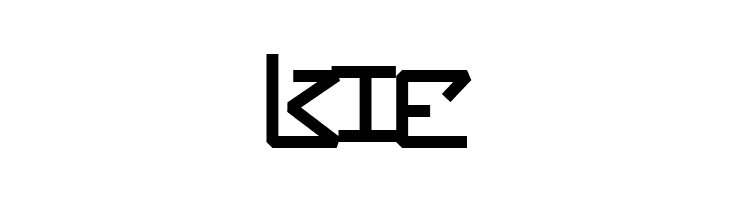
HobbyHorse Font
Font by Nick Curtis - www.nicksfonts.com
A playful, bold serif font with rounded features and a whimsical style.
Lara Prints Font
A playful, casual handwritten font with irregular, organic letterforms.
CameoAppearance Font
Font by Nick Curtis - www.nicksfonts.com
A bold, decorative font with geometric shapes and ornate frames.
changes... Font
A playful, bold handwritten font with whimsical elements.
Ganymedian Regular Font
A bold, geometric font with tall, narrow characters and a modern aesthetic.
philosophy Font
A bold, geometric font with a strong, industrial feel.
KG Set Fire to the Rain Font
Font by www.kimberlygeswein.com - Kimberly Geswein
A playful, handwritten font with rounded edges and a casual style.
K22 Spotty Face Font
Font by Toto
A playful, dotted font perfect for creative and modern designs.
Majoram Sans Bold Font
A modern, geometric sans-serif font with a sleek and minimalist design.
Andada Font
A modern serif font with elegant curves and balanced stroke contrast.
Duralith Font
Font by Apostrophic Lab
A modern, geometric font with rounded edges and a playful style.
SF Chromium 24 Font
Font by ShyFonts
A futuristic, geometric outline font with a sleek and modern design.
Voluptate_demo Font
Font by www.fontscafe.com
An elegant, flowing script font with intricate, interconnected letterforms.
FreckleFace-Regular Font
A playful, hand-drawn font with bold, irregular strokes and a lively appearance.
HIGH FONT II B YOUBYC_FONTunik Font